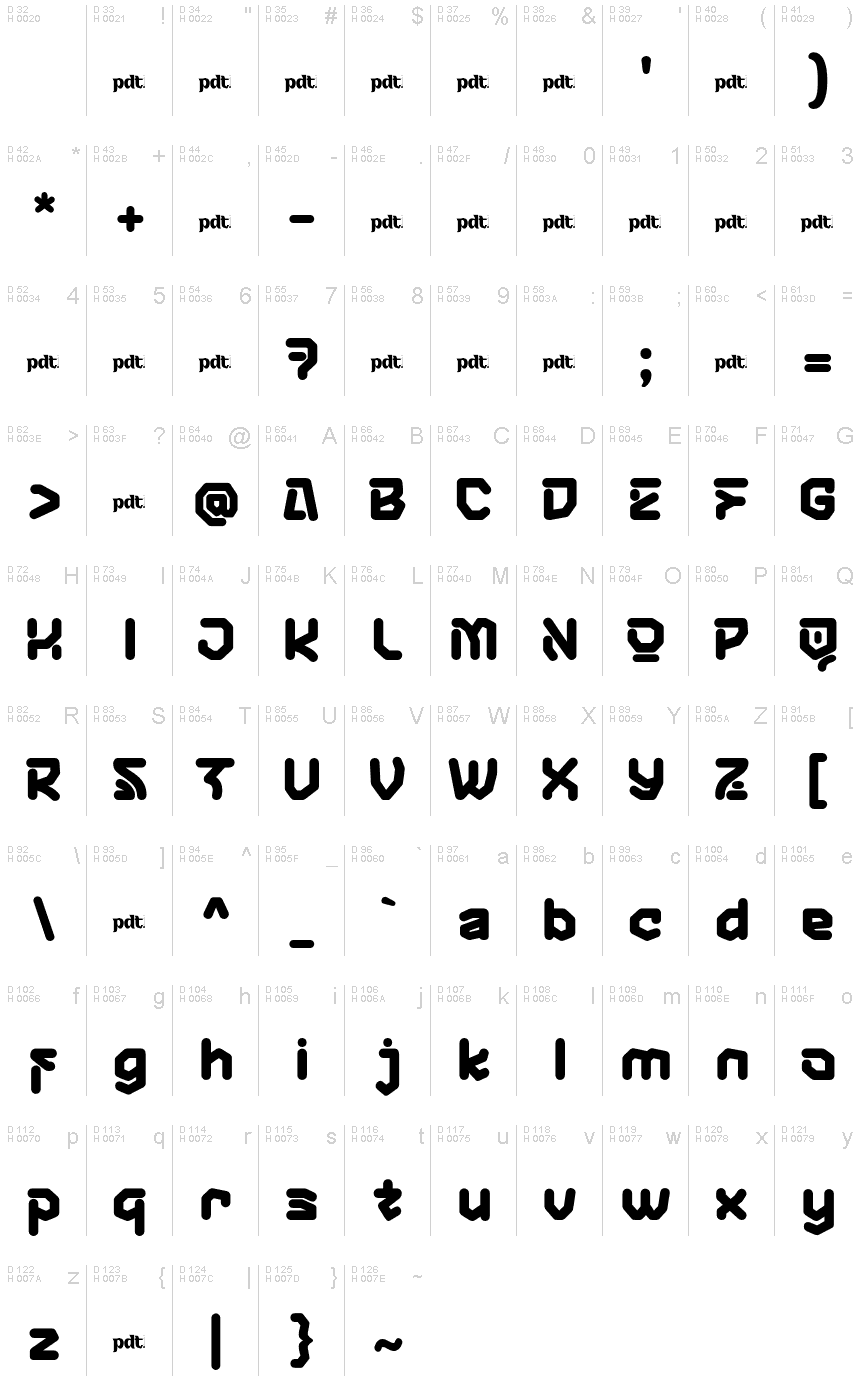
SAZONEtrial-Regular
SAZONE, designed by Rozi of Twinletter, is a captivating display font that propels your projects into the future. Its semi-expanded width adds balance and depth to your designs. With its sleek and modern aesthetic, SAZONE is perfect for creating attention-grabbing logos, striking headlines, and cutting-edge branding materials. Bring a futuristic touch to your magazine layouts or transform your website with this innovative typeface. Let SAZONE elevate your creative projects across various industries like technology, fashion, and entertainment. Embrace the boldness of the future with SAZONE's mesmerizing style and semi-expanded font width.